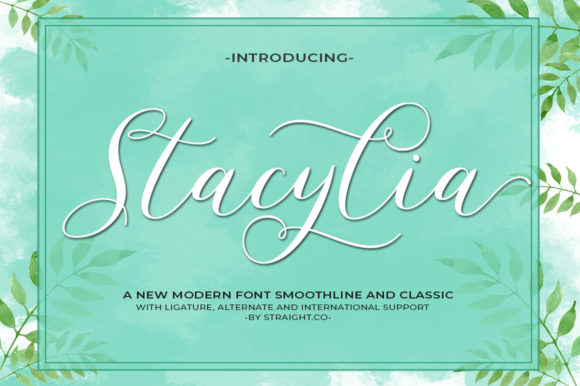
In a world where visual expression reigns supreme, introduce Stacylia Font - a script font that captures the essence of whimsical wonder and childhood dreams. Its delightful glyphs dance across the digital canvas, evoking a playful spirit that's perfect for adding a touch of enchantment to your creative projects.
Stacylia Font is a visual symphony of charm, inviting you to craft captivating designs that resonate with young hearts. Its smooth, flowing strokes create an aura of magic, while intricate swashes add an element of elegance and sophistication. Imagine the sheer joy of seeing your designs come to life, adorned with Stacylia's enchanting presence.
Unleash your creativity and embark on a journey of artistic exploration with Stacylia Font. From cheerful children's t-shirts to whimsical invitations, bring your imagination to life with every letter and every word. Feel the thrill of seeing your designs resonate with a universal appeal that transcends age and cultural boundaries.
Stacylia Font is more than just a font; it's a portal to a world of wonder and limitless possibilities. It empowers you to create designs that touch the hearts of children and adults alike, leaving a lasting impression that ignites smiles and sparks conversations. Embrace the magic of Stacylia Font and embark on a creative odyssey that will leave you spellbound.